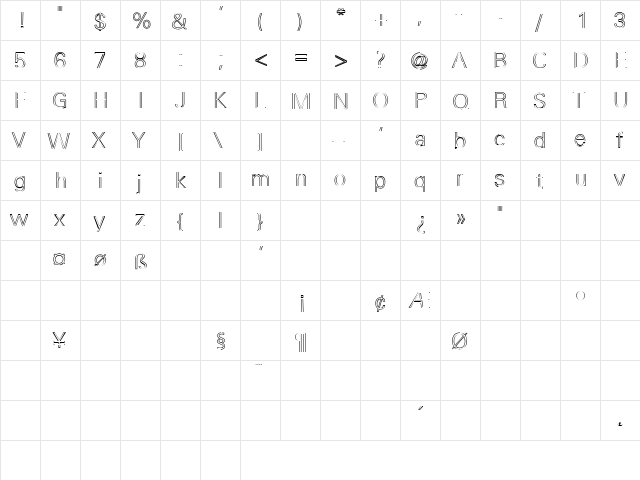
Regular 2 Regular Font Preview
Regular 2 Regular
Design Context for Regular 2 Typeface
Regular 2 offers clean, dependable letterforms without strong stylistic allegiance, making it a practical choice for designers who need flexibility.